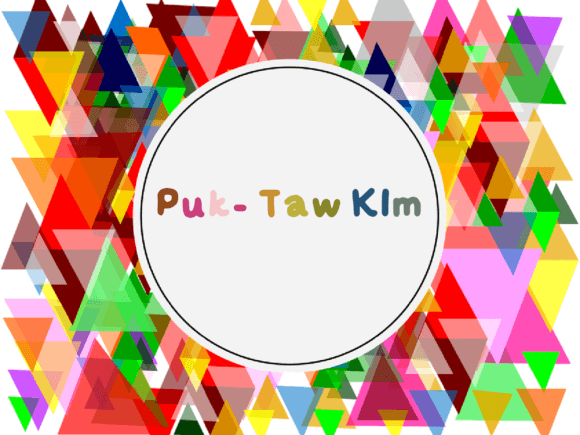
Behold the allure of Puk Taw Klm, a stunning display font that captivates with its beautifully rounded and bold letters. This font exudes charm and sophistication, adding a touch of elegance to any project it graces. Immerse yourself in the world of distinctive typography as Puk Taw Klm transforms your designs into works of art.
Step into a realm of creative possibilities with Puk Taw Klm, the font that speaks to your heart. Its enchanting curves and confident strokes evoke a sense of playfulness and joy, inviting you to explore new horizons of expression. Unleash your imagination and let Puk Taw Klm guide you towards design brilliance.
Experience the versatility of Puk Taw Klm, a font that effortlessly adapts to a myriad of projects. Whether you're crafting a heartfelt letter, designing an enchanting greeting card, or creating a memorable wedding invitation, Puk Taw Klm rises to the occasion, adding a touch of magic to every word. Witness how this font breathes life into your designs, making them captivating and unforgettable.
With Puk Taw Klm, you'll discover a font that dances across the page, captivating your audience with its dynamic energy. Its distinct character shines through, leaving a lasting impression on all who encounter it. Embrace the power of Puk Taw Klm and watch as your designs take center stage, commanding attention and inspiring awe.